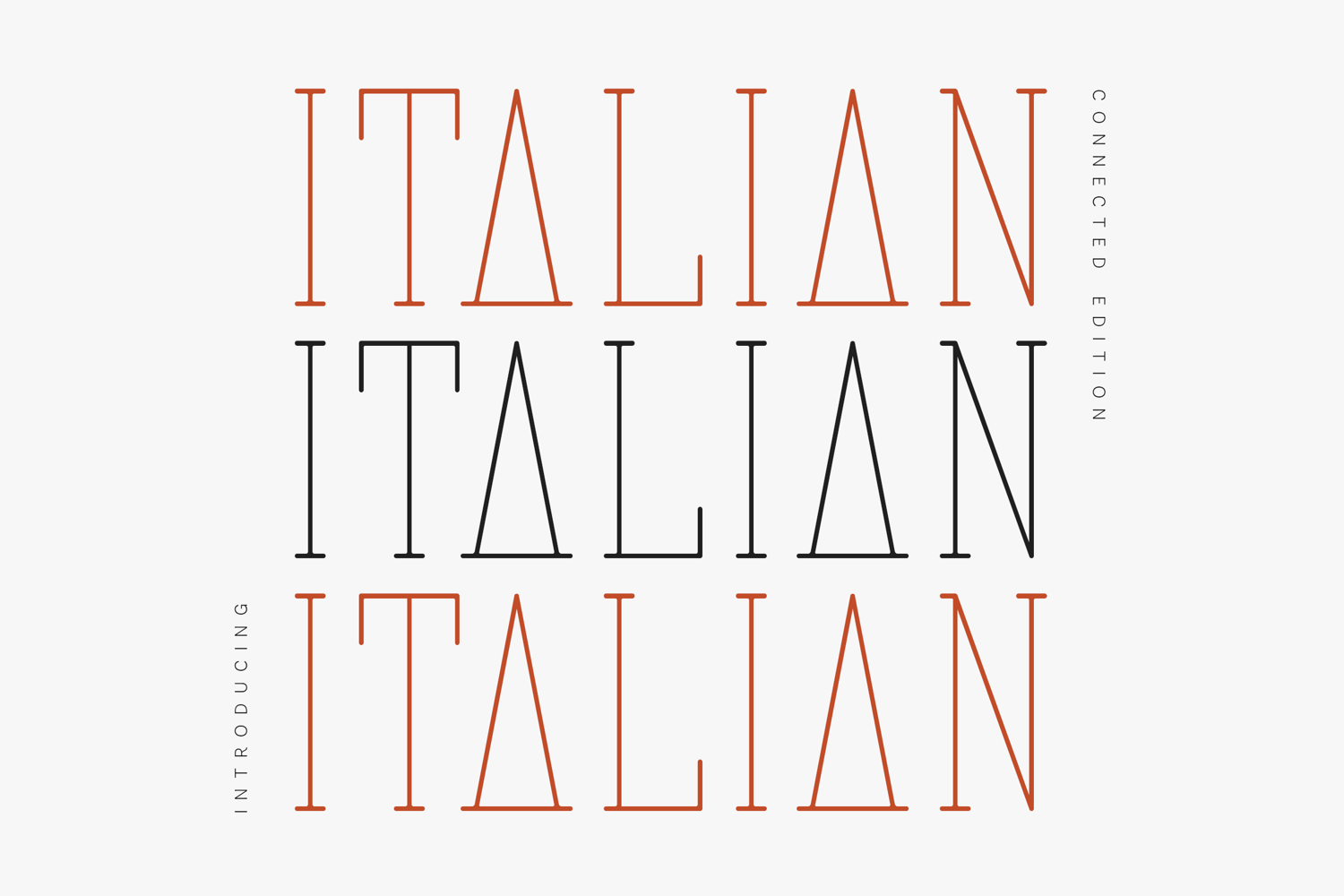
Italian Connected Edition Elegant Condensed Serif Font
Italian Connected Edition is a refined condensed serif font inspired by classic Italian typography, timeless editorial design, and sophisticated luxury branding. Featuring delicate proportions, graceful curves, and subtle connected details, this typeface delivers a clean yet distinctive personality that feels both modern and nostalgic.
Its tall structure and elegant letterforms make it ideal for premium logos, fashion branding, editorial layouts, luxury packaging, wedding stationery, restaurant identities, book covers, and high-end marketing materials. The carefully crafted multilingual character set ensures versatility across international projects while maintaining a stylish and cohesive appearance.
Whether you're designing for a boutique brand, creating elegant headlines, or building a sophisticated visual identity, Italian Connected Edition adds charm, refinement, and character to every composition.
- Elegant Connected Details
- Luxury Editorial Style
- Perfect for Branding, Logos, Packaging & Headlines